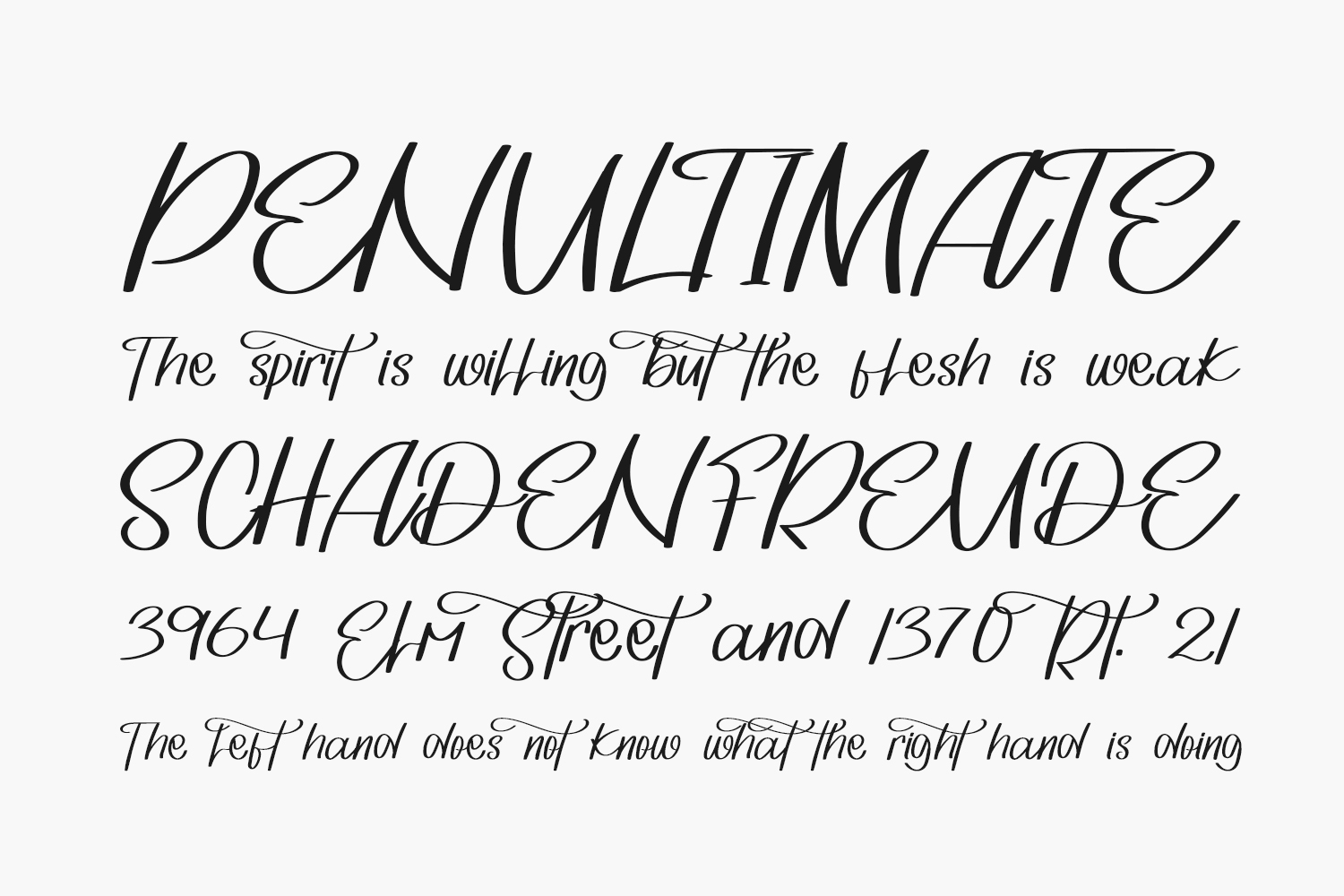
Kikio Free Font is a stunning and emotive font that evokes feelings of wonder, happiness, and nostalgia. The font’s unique letterforms are playful and cheerful, with a hint of nostalgia, making it perfect for creating designs that evoke a sense of warmth and joy. It’s perfect for creating invitations, posters, social media graphics, packaging, and much more. The font’s design is also great for creating a sense of nostalgia, making it ideal for vintage-inspired designs and projects that aim to evoke memories.